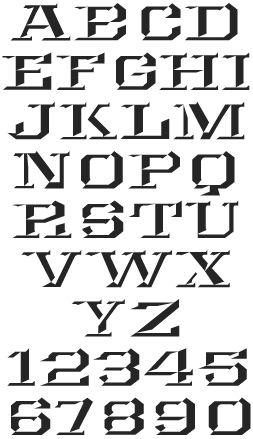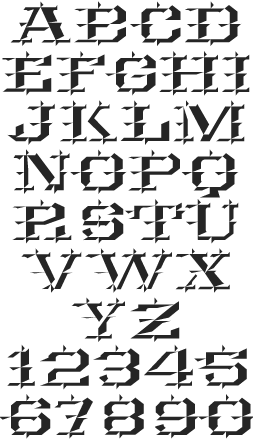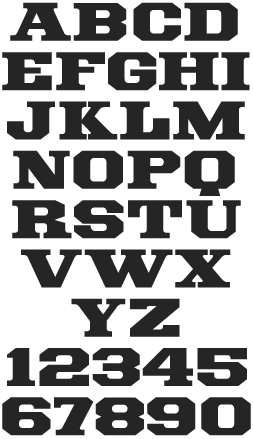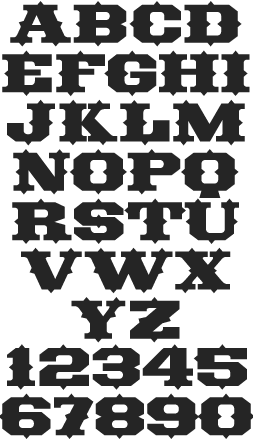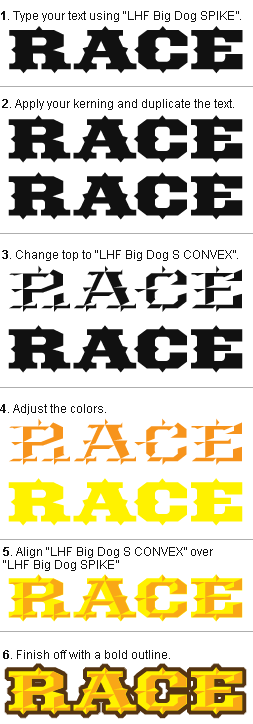
LHF Big Dog
The original Wall Dog font has been redrawn and respaced and kerned. Set
includes Regular and Spiked fonts with Convex fonts to place on top for
a 3D appearance.